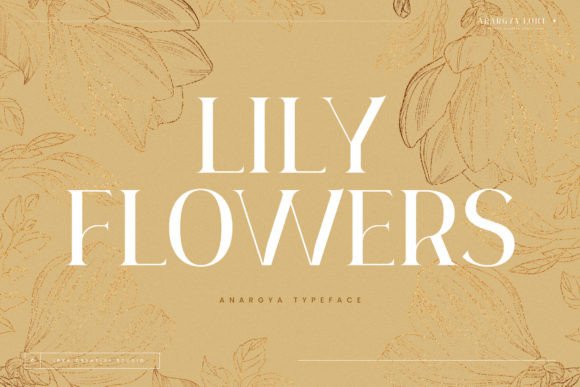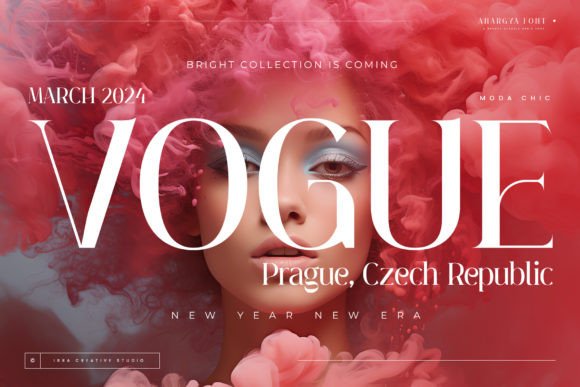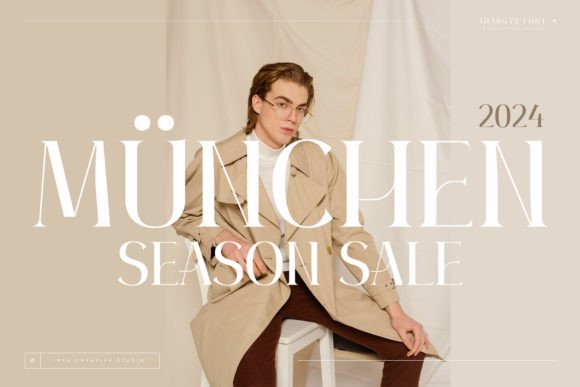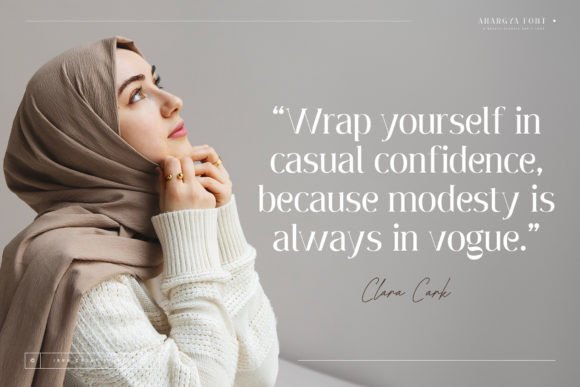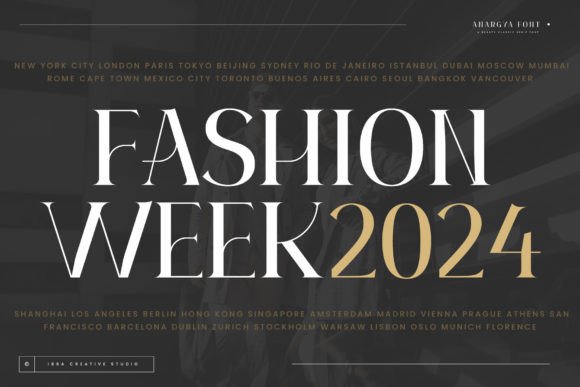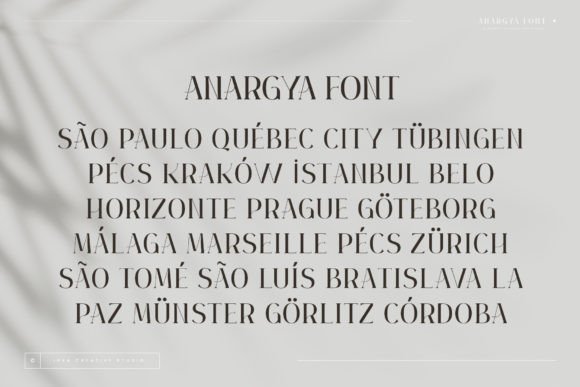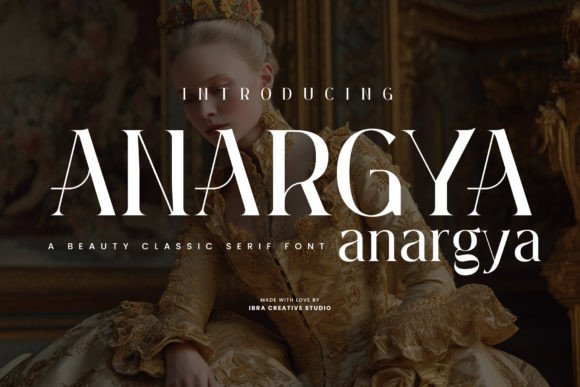
Introducing Anargya Font: A Timeless Beauty for Elegant Designs
In the world of typography, few fonts manage to capture the essence of elegance and sophistication as effortlessly as Anargya. This classic serif typeface is a masterclass in refined design, boasting a harmonious balance between thick and thin strokes that exudes timeless grace and legibility. Whether you’re a designer seeking to elevate your branding, editorial, or luxury aesthetics, Anargya is an exceptional choice that brings a touch of traditional charm to contemporary designs.
The Art of Elegance: Anargya’s Design Philosophy
Anargya’s design is rooted in the principles of classic serif typography, with a refined, high-contrast approach that creates a sense of drama and sophistication. Each letterform is meticulously crafted to showcase a delicate balance between thick and thin strokes, resulting in a font that is both visually striking and effortlessly legible. This attention to detail makes Anargya an ideal choice for designs where elegance and refinement are paramount.
Versatility at Its Finest: Anargya’s Range of Applications
One of Anargya’s greatest strengths is its versatility. This font is equally at home in a variety of design contexts, from luxury branding and high-end editorial projects to sophisticated digital interfaces and elegant packaging. Whether you’re seeking to create a lasting impression with a bold headline or convey a sense of refinement through body text, Anargya’s range of weights and styles ensures that you can achieve your design goals with ease.
Timeless Appeal: Why Anargya Endures
In an era where design trends come and go, Anargya’s timeless appeal sets it apart from more fleeting typography options. This font’s classic design is inspired by the great typfaces of the past, yet its refined, contemporary aesthetic ensures that it remains perfectly at home in modern designs. As a result, Anargya is an excellent choice for designers seeking to create work that will stand the test of time, remaining elegant and sophisticated for years to come.
Designing with Anargya: Tips and Inspiration
When working with Anargya, designers can draw inspiration from its rich history and heritage. Consider pairing Anargya with complementary fonts to create striking contrast and visual interest, or use it as a standalone font to let its elegance shine. For editorial projects, Anargya’s legibility and refined texture make it an excellent choice for body text, while its bold weights are perfect for headlines and titles.
Crafting Luxury Aesthetics with Anargya
For designers and crafters working in the luxury sector, Anargya offers a wealth of creative possibilities. Use this font to create sumptuous branding materials, such as letterheads, business cards, and packaging, that exude refinement and sophistication. Anargya’s elegant texture and classic design also make it an excellent choice for high-end editorial projects, such as fashion magazines and bespoke publications.
In conclusion, Anargya is a truly exceptional font that offers designers and crafters a timeless, elegant solution for a wide range of design applications. Its refined, high-contrast design and meticulous craftsmanship make it an ideal choice for luxury branding, editorial, and digital designs. Whether you’re seeking to create a lasting impression or simply elevate your design aesthetic, Anargya is an excellent choice that is sure to inspire.